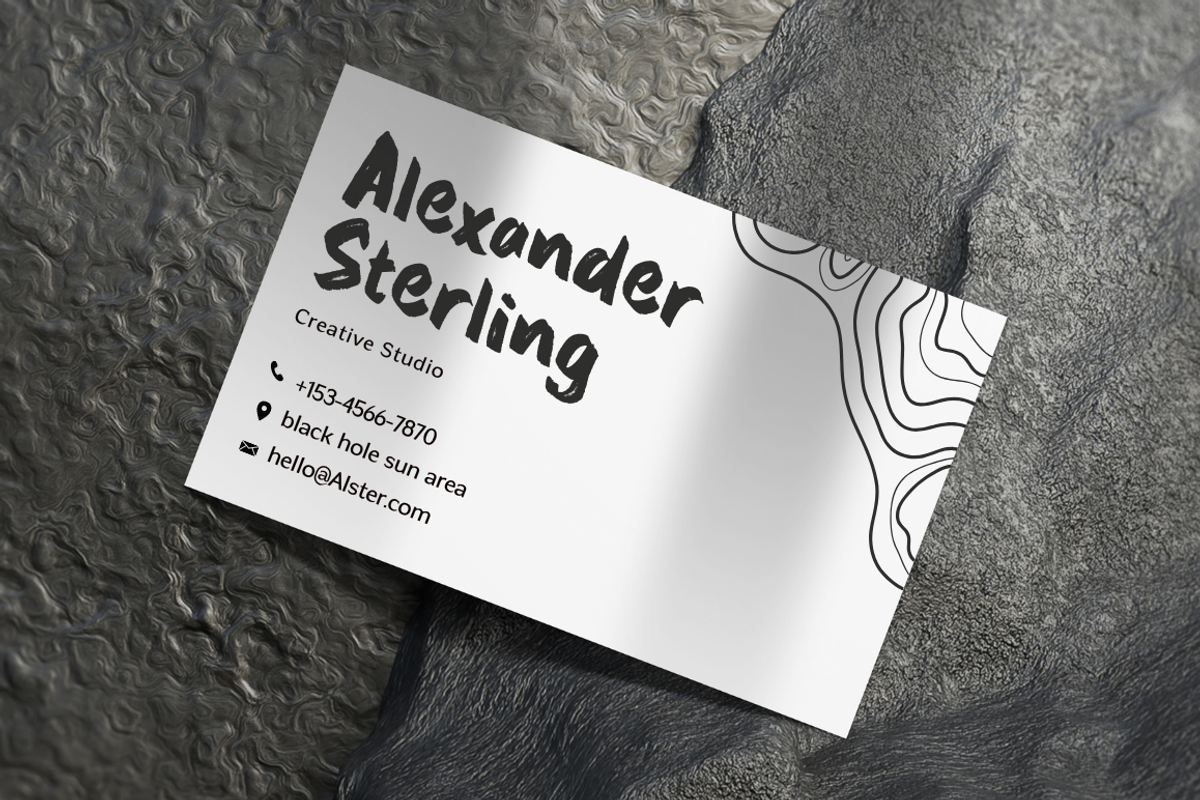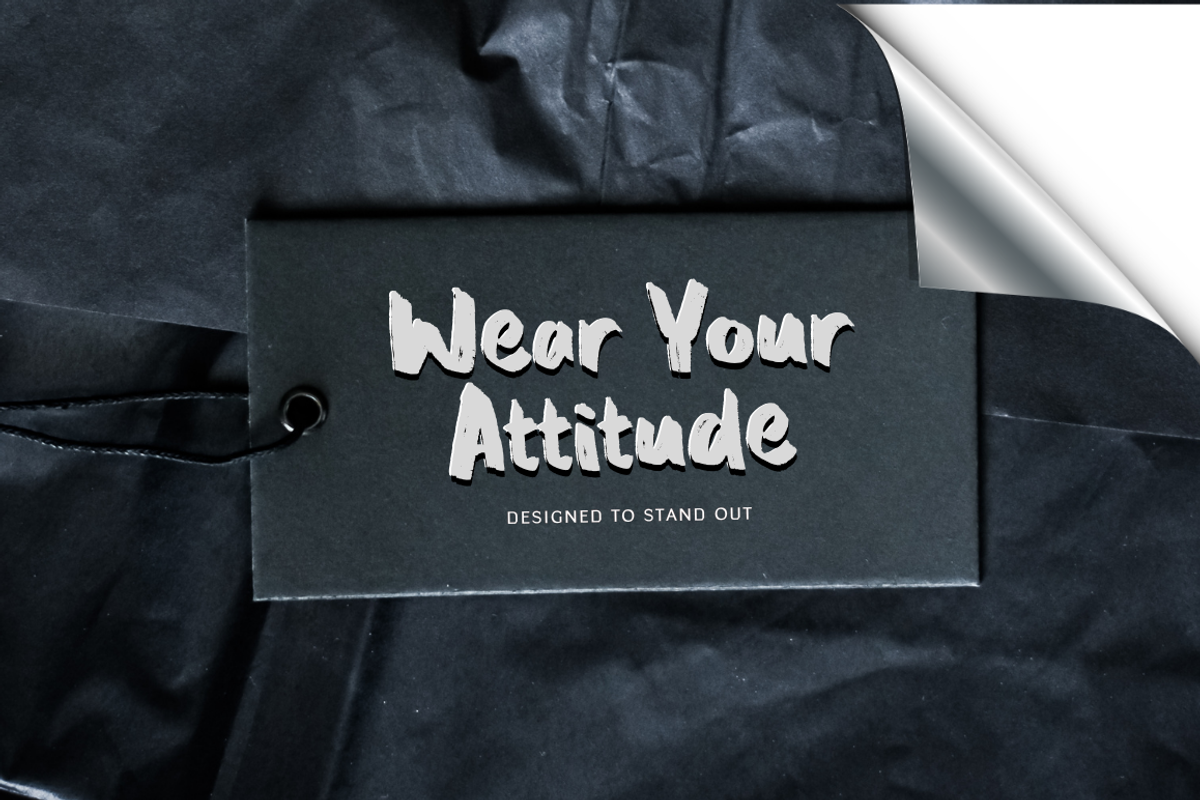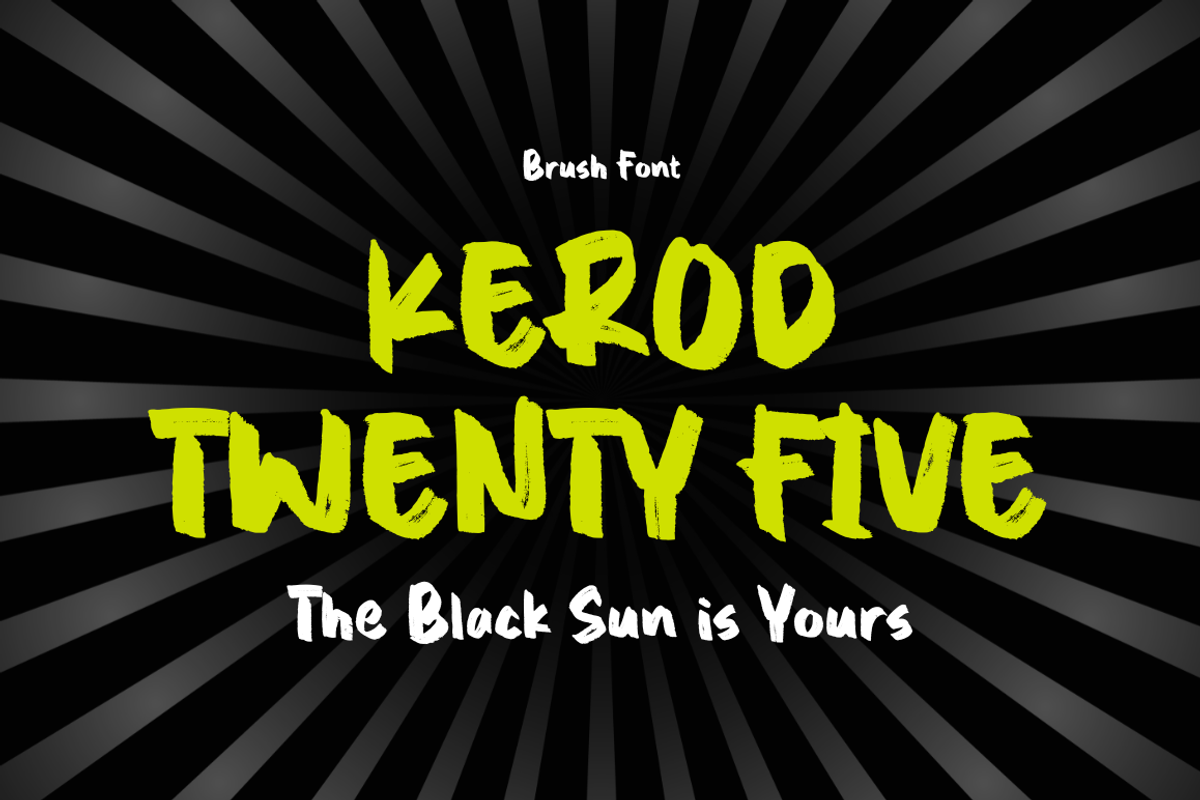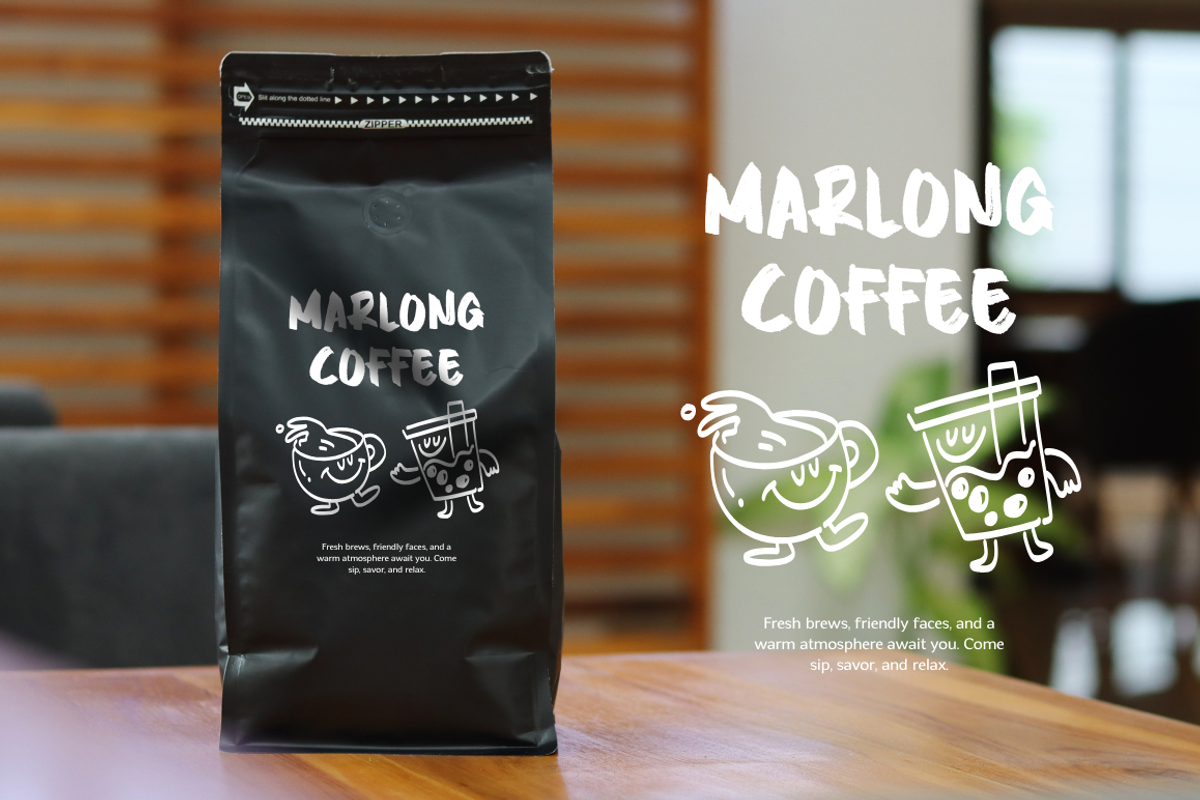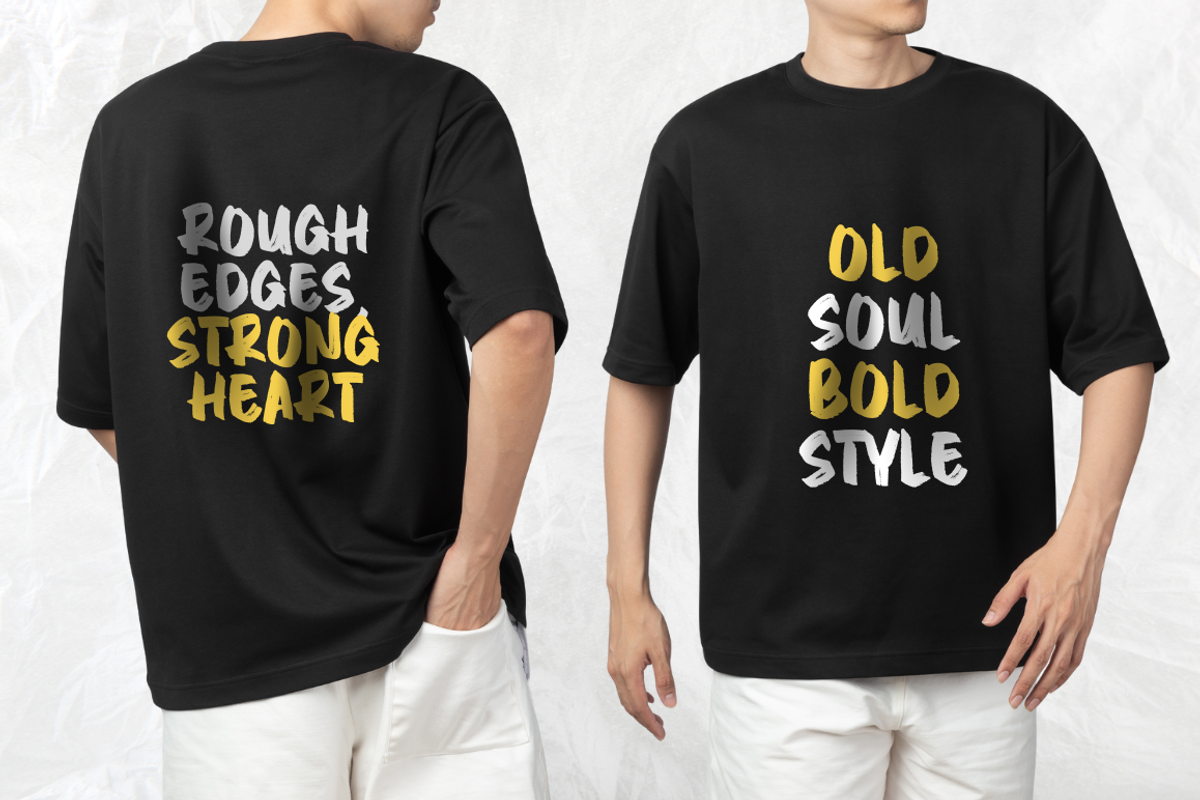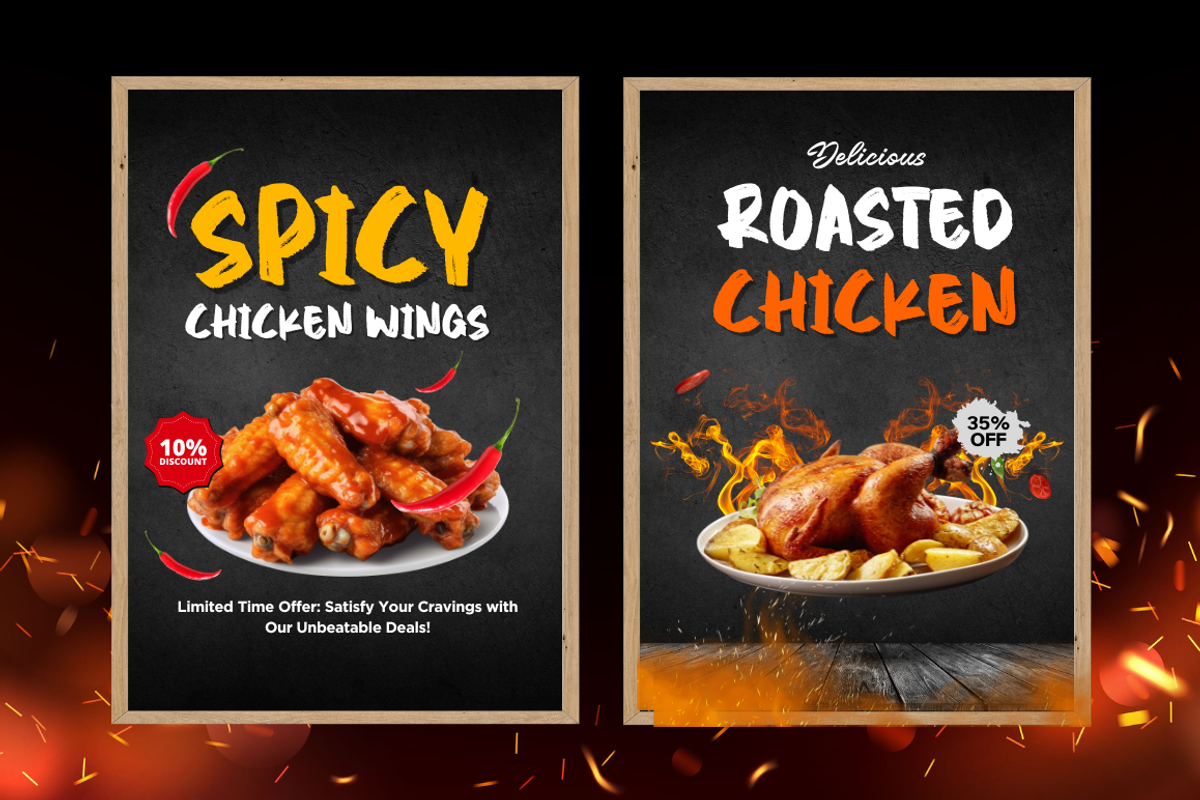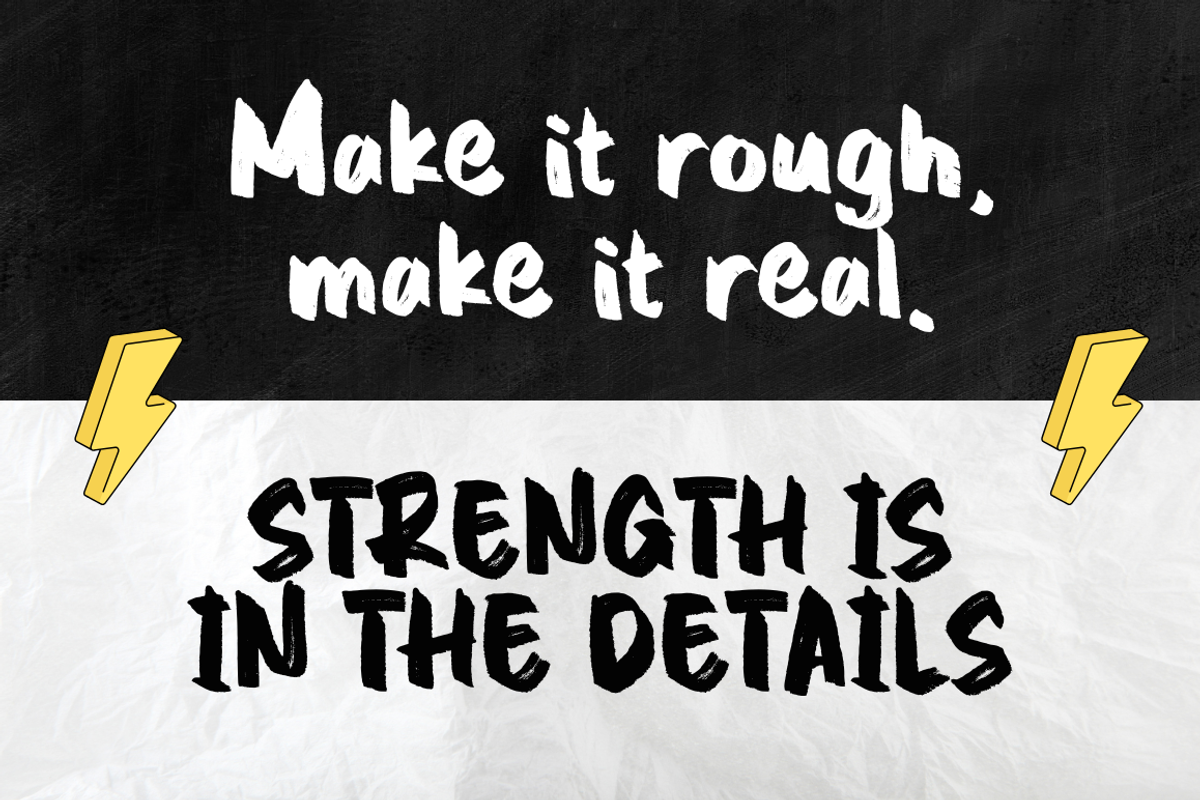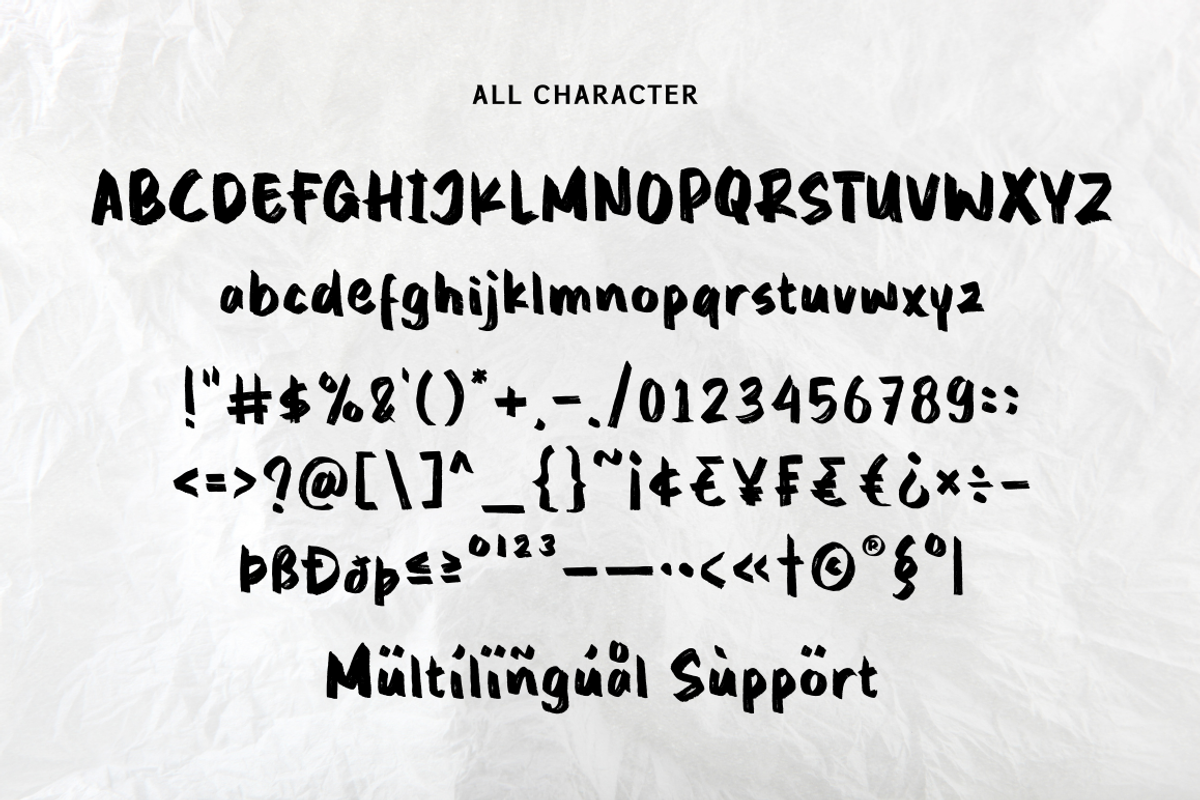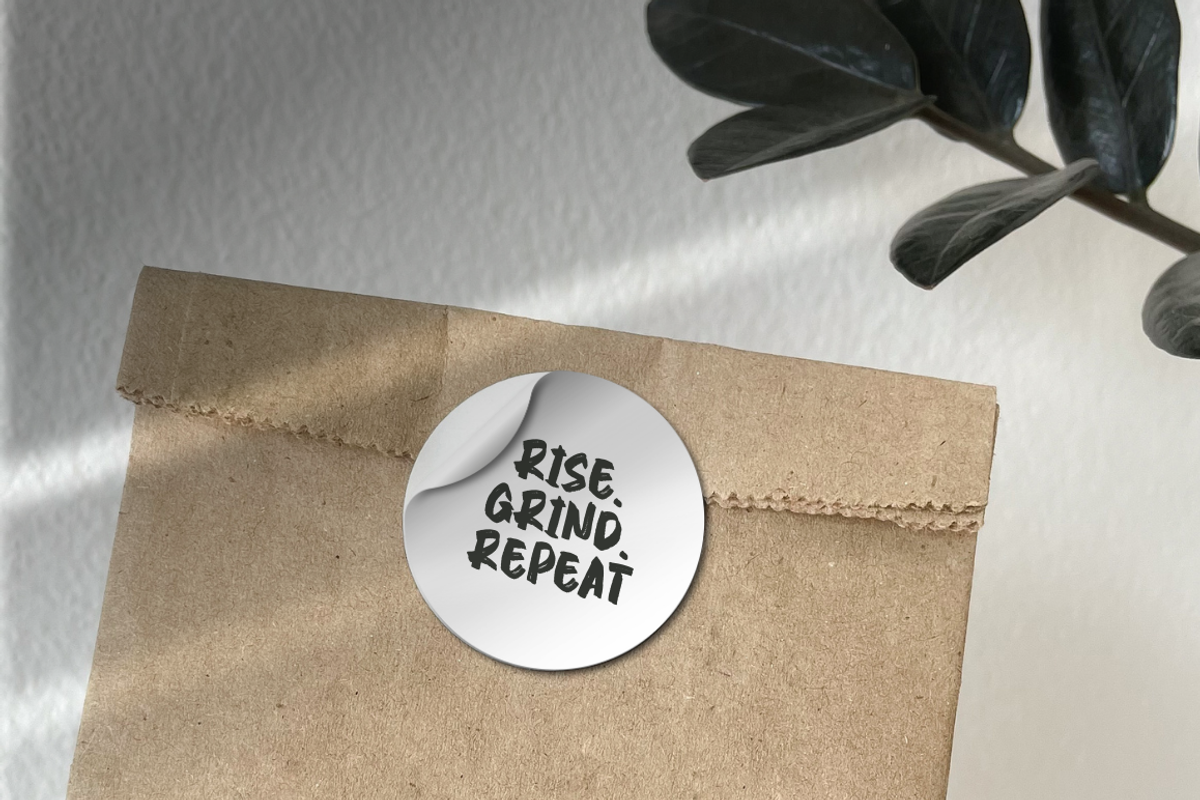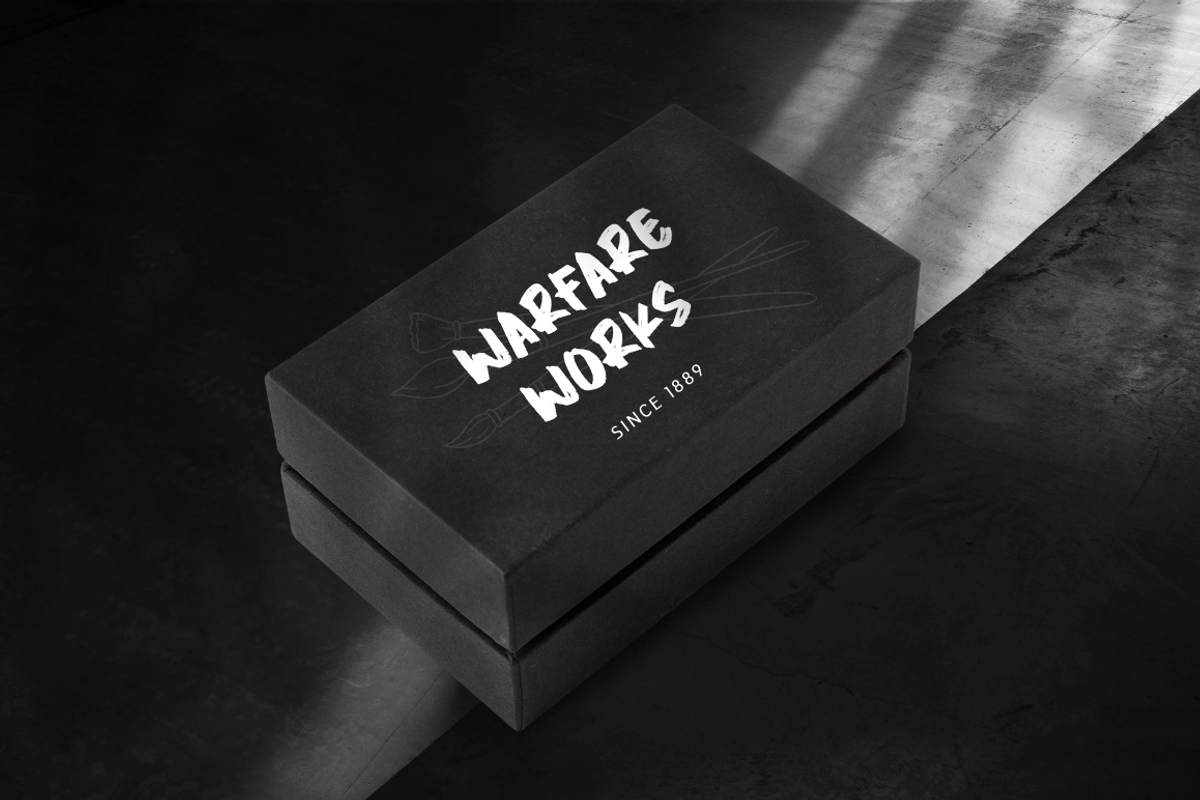
Kerod Twenty Five - Brush Font
Kerod Twenty Five is a bold and expressive brush font that brings a raw, hand-painted feel to your designs. With its dynamic strokes and textured details, this font is perfect for posters, logos, apparel, packaging, and any project that needs an energetic and artistic touch. Whether you're aiming for a street-style vibe or a handcrafted aesthetic, Kerod Twenty Five delivers a strong and authentic personality.
- Numerals & punctuation